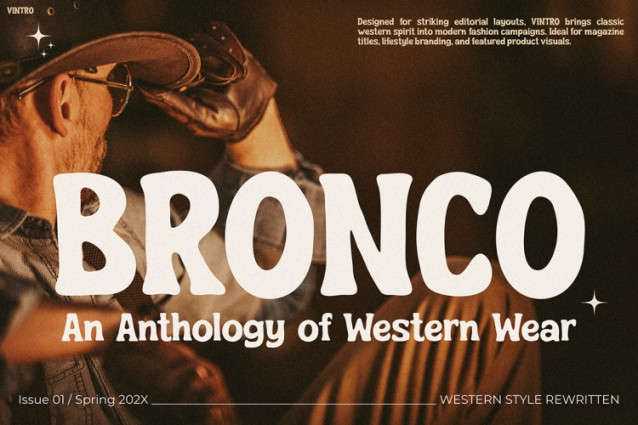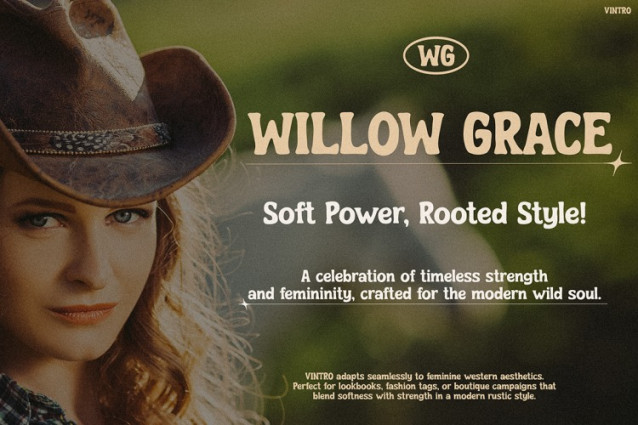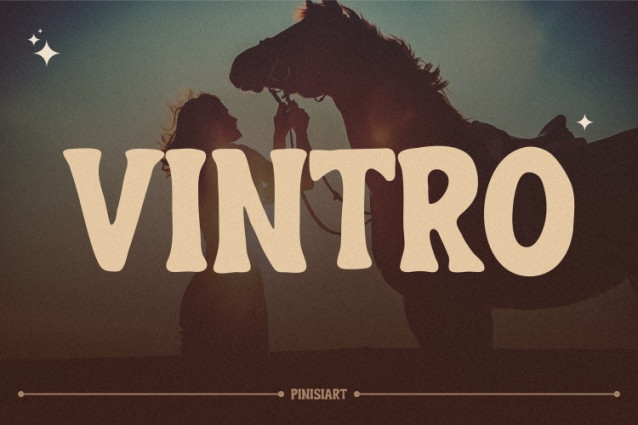
Vintro Font
Vintro Font, instantly grabs attention with its bold, retro style—perfect for bold imagery and warm, inviting campaign aesthetics. This font brings the spirit of the old West into the modern world. As such, it evokes the charm of vintage poster art while maintaining legibility and readability. What’s more, with its soft, rounded serifs and playful proportions, Vintro infuses any design with a welcoming, approachable feel. Not only that, its slightly irregular letterforms give it a handmade, natural feel that resonates with authenticity—making it ideal for fashion brands, advertising posters, seasonal campaigns, and lifestyle imagery. Whether it’s a summer collection lookbook or a big sale announcement, Vintro’s aesthetic amplifies the visual story with bold personality and rustic elegance.
The Vintro font combines boldness with warmth—each letter is crafted with careful attention to balance, giving it a friendly yet confident personality. Consequently, it becomes especially effective in visual storytelling where tone and mood are everything. Furthermore, it works beautifully across digital and print platforms, especially for Instagram campaigns where first impressions matter most. Thanks to its clean yet expressive character map and comprehensive punctuation support, Vintro allows for dynamic layouts and consistent branding. From large headlines to short brand statements, it enhances messages with its visually engaging appeal.